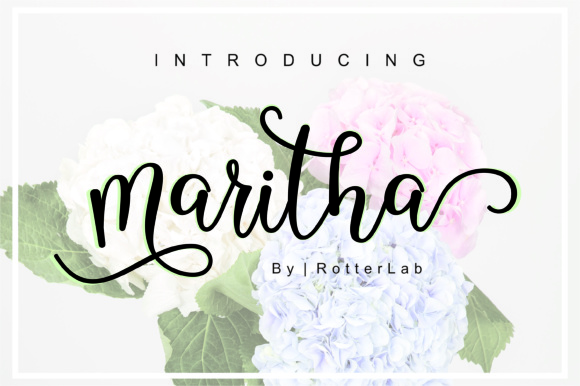
Introducing Maritha Script, an enticing script font that will captivate your audience with its elegance and charm. Immerse yourself in a world of creativity where your designs come alive with the beauty of this extraordinary script.
With its whimsical baseline and enchanting feminine flair, Maritha Script is the epitome of grace and sophistication. Picture your wedding invitations adorned with its delicate strokes, effortlessly conveying the joy and romance of your special day. Express your gratitude through thank-you cards that radiate warmth and appreciation, leaving a lasting impression on your recipients.
But Maritha Script's magic knows no bounds. Its versatility extends to a symphony of creative endeavors – from heartfelt quotes that resonate with emotion to greeting cards that spread cheer and love. Your logos will exude professionalism and elegance, while your business cards will leave an indelible mark of distinction.
And as you venture into the realms of digital artistry, Maritha Script stands as your loyal companion. Its ink and watercolor effects will transform your designs into captivating works of art, imbued with a touch of nostalgia and charm.
But Maritha Script is more than just a font – it's an invitation to unleash your imagination and create designs that whisper stories and evoke emotions. Its initial and terminal letters, ligatures, and multi-language support empower you with endless possibilities to craft personalized messages that speak directly to your audience.
In the world of typography, Maritha Script is a radiant star, illuminating your creative journey with its captivating beauty. Join the ranks of designers who have discovered the transformative power of this extraordinary font, and witness the magic it unfolds within your designs.